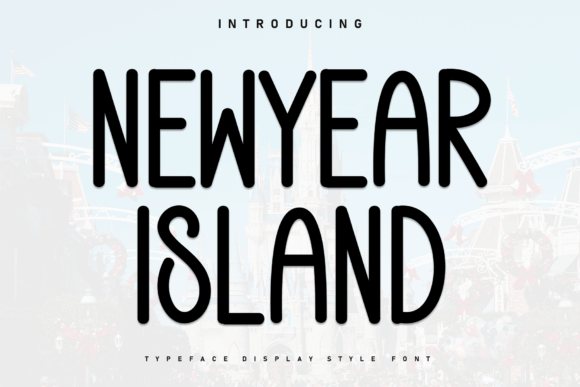
Newyear Island Font
Newyear Island is a sweet and beautiful display font that brings a cozy, elegant touch to any design project. As a crafter or handmade seller, you know how important it is for your products to stand out while still feeling personal and inviting. Newyear Island offers just that—its characters dance along the baseline, adding a playful yet refined charm that works perfectly for everything from printable art to product labels.
Newyear Island for Handmade Labels and Product Tags
When creating handmade items like candles, soaps, or bath bombs, the right font can make all the difference in how your product is perceived. Newyear Island for handmade labels and product tags adds a warm, artisanal feel that appeals to customers looking for something unique. Its soft curves and whimsical baseline movement give each label a custom, handcrafted look that feels authentic and trustworthy.
Whether you're labeling mason jars, packaging gift boxes, or creating small-batch product tags, Newyear Island ensures your text remains readable while maintaining an attractive visual presence. This font is especially useful when you want to highlight names, titles, or short phrases without overwhelming the design.
Using Newyear Island on Stickers and Greeting Cards
Stickers and greeting cards are some of the most popular handmade products, and Newyear Island can elevate their appeal with its delicate, flowing style. For stickers, this font works best on small designs where clarity is key. Its baseline movement adds a subtle, artistic flair that doesn't interfere with readability, making it ideal for birthday cards, thank-you notes, and seasonal greetings.
When designing greeting cards, consider pairing Newyear Island with a clean sans serif font for contrast. This combination keeps the message clear while letting the display font shine as a focal point. Whether you're creating a wedding card or a holiday note, Newyear Island helps convey warmth and personality without being too flashy.
Newyear Island for Wedding Invitations and Elegant Branding
Wedding invitations require a balance of beauty and legibility, and Newyear Island delivers both. Its charming, dancing characters add a romantic, vintage-inspired touch that's perfect for rustic or farmhouse-style weddings. When used for invitation wording, this font creates a sense of elegance and sophistication that resonates with couples looking for a personal, heartfelt design.
For branding purposes, Newyear Island can be used on logos, business cards, and signage. Its versatility allows it to work well in both digital and printed formats, making it a valuable addition to your design toolkit. Pair it with a bold serif or modern sans serif font to create a cohesive brand identity that feels both professional and approachable.
Applying Newyear Island to Farmhouse Signs and Wall Art
Farmhouse signs and wall art are a staple in many home decor projects, and Newyear Island adds a soft, inviting aesthetic that fits perfectly in these spaces. Whether you're crafting a sign for a kitchen, bathroom, or living room, this font brings a cozy, personalized vibe that makes your designs feel more like one-of-a-kind creations.
When using Newyear Island on signs, keep the text short and focused. The font’s baseline movement works best with single words or short phrases, such as "Welcome," "Home Sweet Home," or "Family." For larger pieces, consider using a bolder version of the font or adjusting the spacing to ensure clarity at a distance.
Newyear Island for Digital Printables and SVG Designs
If you sell digital printables or create SVG-style designs, Newyear Island is a fantastic choice for adding a personal touch to your files. Its elegant style works well for printable planners, calendar pages, and DIY templates, giving your products a premium feel that customers will appreciate.
When working with SVG files, make sure to test the font at different sizes to ensure it remains readable. Newyear Island performs well in both large and small formats, making it suitable for everything from downloadable art prints to intricate cut-out designs. Always check the font’s licensing terms to confirm it’s appropriate for commercial use, especially if you’re selling digital downloads or client work.
Pairing Newyear Island with Other Fonts for Creative Projects
Font pairing is essential for creating visually balanced designs, and Newyear Island pairs beautifully with a variety of other typefaces. For a modern, clean look, try combining it with a sans serif font like Montserrat or Lato. This contrast highlights the uniqueness of Newyear Island while keeping the overall design professional and easy to read.
If you're working with a handwritten or script font, Newyear Island can serve as a complementary element that adds structure and clarity. Just be mindful of the weight and style to avoid clashing. Experiment with different combinations to find what works best for your specific project and audience.
When designing holiday packaging, consider using Newyear Island for the main title or tagline. Keep the rest of the text simple and minimal to avoid overcrowding the design. This font also works well for creating printable holiday banners, and signs that can be used in both physical and digital spaces.